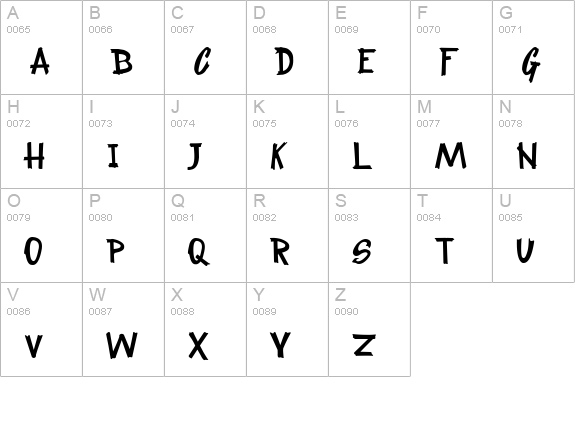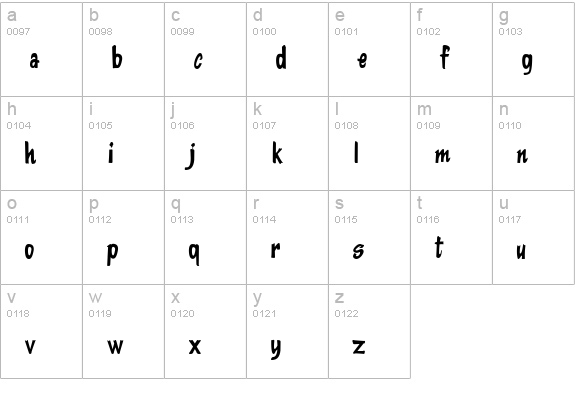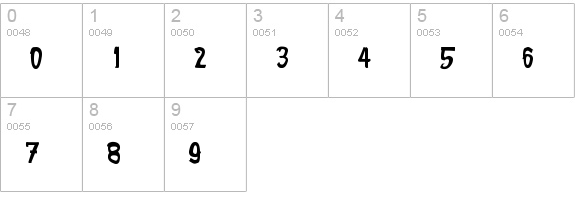
Introducing KentuckyFriedFont, a delectable and enticing typeface that will leave you craving for more. This font is the perfect blend of boldness and elegance, capturing the essence of the beloved Kentucky Fried Chicken brand. Every letter is meticulously crafted to reflect the iconic KFC logo, evoking a sense of nostalgia and mouthwatering anticipation. KentuckyFriedFont is not only visually stunning, but it also offers a seamless reading experience. Its clean and well-defined characters make it ideal for a wide range of design projects, from restaurant menus and food packaging to advertising materials and digital content. Whether you're aiming for a classic or contemporary feel, this font effortlessly adapts to your creative vision. What sets KentuckyFriedFont apart is its captivating versatility, making it suitable for both professional designers and casual enthusiasts. It is incredibly easy to use, allowing you to effortlessly incorporate the KFC spirit into your work. From headlines to body text, this font ensures that your message stands out with its unique and recognizable charm. And the best part? KentuckyFriedFont is available for free! Yes, you read that right. You can download this mouthwatering typeface at FontsMarket.com, a trusted source for high-quality fonts. So go ahead, elevate your design projects with the irresistible appeal of KentuckyFriedFont. Indulge in the irresistible nostalgia and embrace the finger-licking good vibes that this font brings. Don't miss out on this opportunity to spice up your creations with a touch of KFC magic. Download KentuckyFriedFont today and let your designs sizzle!